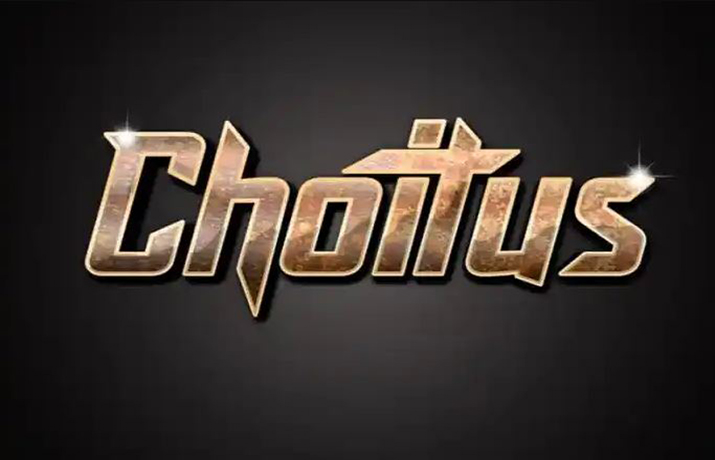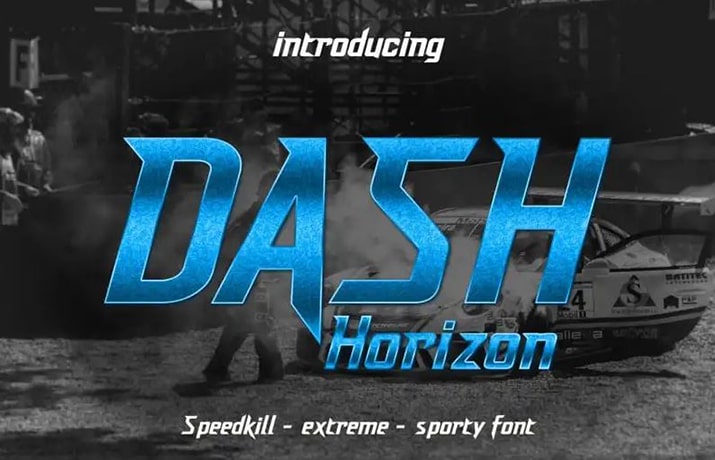
Dash Horizon Font is a bold, modern, and Sharpe display typeface that is tightly bound to give a solid and strong impression. Ideal for logos, blog titles, and prominent text is made with display fonts.
A well-known designer and creator Krisna Teja takes the charge of designing and releasing it primarily.
The main purpose of creating this display font is to give a unique touch to specific words for rapid growth in the market.
| Style: | Display, Modern, Gothic |
Display fonts are a broad category of fonts designed for short-form and often large-format applications, such as billboards or posters; logotypes; headlines, game titles, movie posters, books, brand logos, and headlines in magazines or websites; And book covers.
This gothic modern typeface comes in a single regular weight including an Open Type file format.